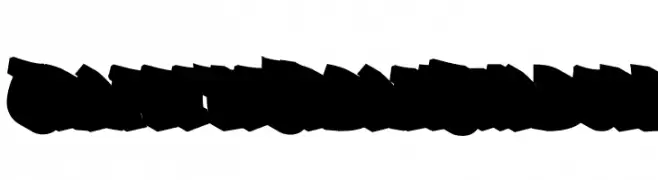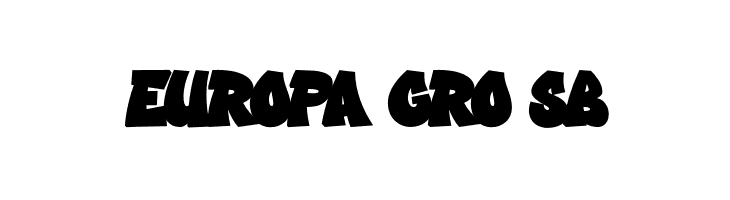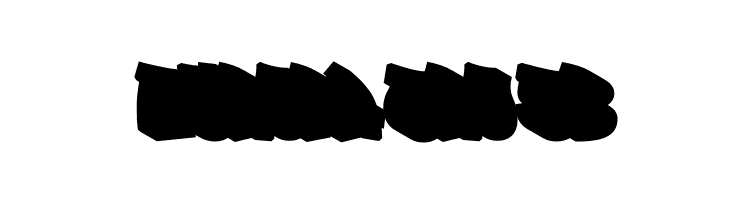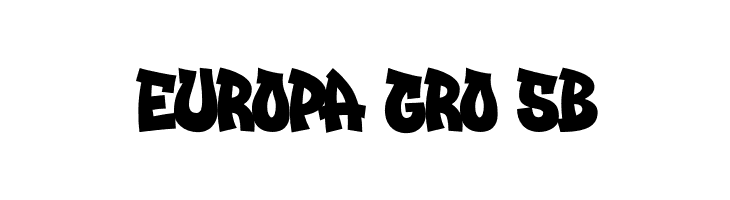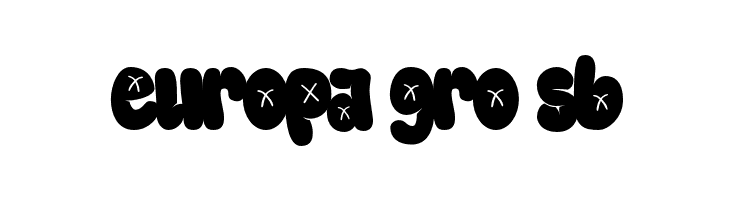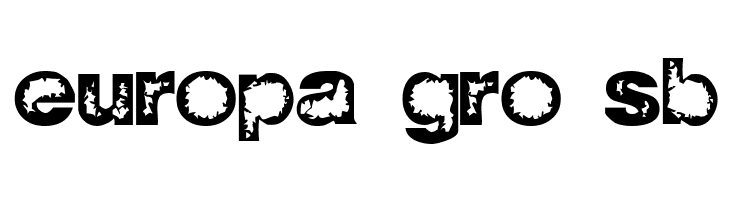
( Fonts by Moch Fitrah Hidayat )
A bold, graffiti-style font with dynamic, playful strokes.
( Fonts by Nirmana Visual )
A bold, graffiti-inspired font with shadowed, three-dimensional characters.
( Fonts by Nirmana Visual )
A bold, graffiti-inspired font with dynamic strokes and urban flair.
( Fonts by Nirmana Visual )
A bold, playful graffiti-style font with rounded, balloon-like characters.
( Fonts by Nirmana Visual )
A bold, graffiti-inspired font with thick, rounded characters and a playful, urban style.
( Fonts by pOPdOG fONTS - Dimitris Kolyris - popdog_fonts.tripod.com OFF SITE )
A bold, textured font with a distressed, grunge aesthetic.
( Fonts by Paul Reid - tracertong.co.uk )
A pixelated, retro font inspired by early digital graphics.
( Fonts by The Scriptorium - Dave Nalle )
An ornate script font with elegant swirls and flourishes.
( Fonts by Altsys Metamorphosis )
A lively, handwritten font with a calligraphic flair and dynamic strokes.